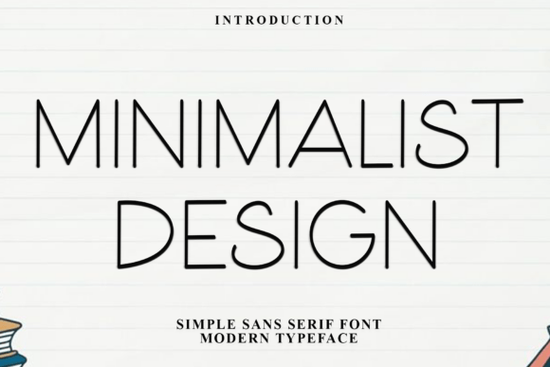
Minimalist Design Font is a versatile typeface that brings a fresh, clean look to any project. Whether you're creating holiday cards, gift tags, or other festive designs, this font adds a touch of charm and simplicity. Its elegant structure makes it easy to read while still standing out with its unique details. The font is PUA encoded, which means you can access all the special glyphs and ligatures without any extra steps.
If you're looking for a font that balances style and functionality, Minimalist Design Font is an excellent choice. It works well in both digital and print formats, making it suitable for a wide range of applications. From small businesses to creative hobbyists, this font can help elevate your typography without overwhelming your design.
What Makes Minimalist Design Font Stand Out?
One of the key features of Minimalist Design Font is its ability to maintain clarity while adding character. The subtle decorative elements give it a festive vibe without making it hard to read. This makes it perfect for holiday-themed projects where the message needs to be clear but the design should still feel special.
The font's versatility allows it to work in different contexts. You can use it for formal invitations, casual greeting cards, or even as a headline in marketing materials. Its clean lines and balanced proportions make it adaptable to various design styles. Whether you're a designer, crafter, or print-on-demand seller, this font can fit into your workflow seamlessly.
How to Use Minimalist Design Font in Your Projects
Start by experimenting with different sizes and weights to see how the font looks in your specific application. For example, using it at a larger size can create a bold statement, while a smaller size might work better for body text. Pairing it with other fonts can also help create visual interest and hierarchy in your designs.
Try using it in combination with geometric or condensed sans-serif fonts for a cohesive look. If you're working on a holiday project, consider adding some decorative elements like snowflakes or stars to complement the font's whimsical nature. This can help reinforce the festive theme and make your design more engaging.
When choosing a font, consider the context in which it will be used. A font that works well for a greeting card may not be the best choice for a business website. Always test the font in different sizes and settings to ensure it meets your requirements.
Whether you're designing for personal use or commercial purposes, Minimalist Design Font provides a reliable and stylish option. Its clean lines and festive flair make it a valuable addition to any designer's toolkit. With the right approach, you can make the most of this font and create visually appealing projects that stand out.
Take some time to explore how this font can enhance your current designs. Try using it in a new project or experiment with different combinations. You might find that it becomes one of your go-to choices for a variety of tasks.